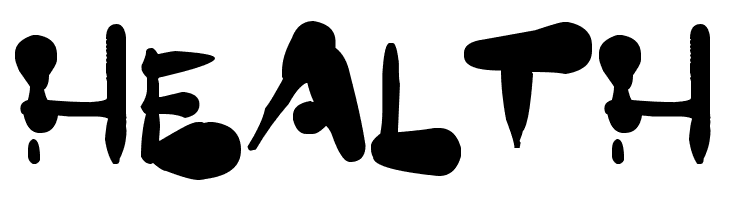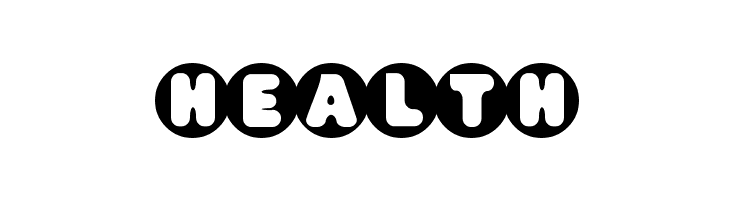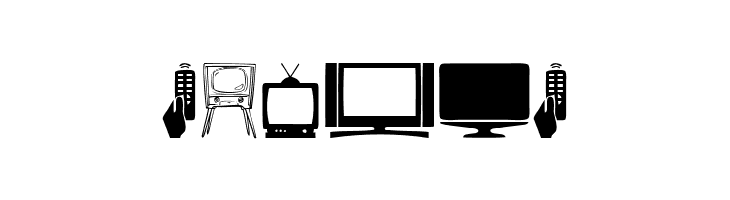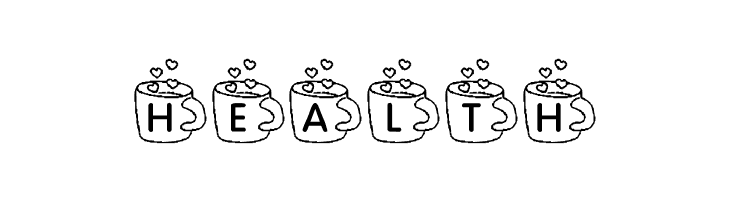
A playful, paint-splatter inspired font with bold, irregular characters.
A bold, distressed font with a vintage, rugged appearance.
A bold, circular font with playful, cartoon-like characters.
Icon-based decorative font featuring TV and media device illustrations.
A bold, distressed font with a vintage rubber stamp appearance.
A whimsical font with letters inside coffee cup designs, featuring heart and steam motifs.